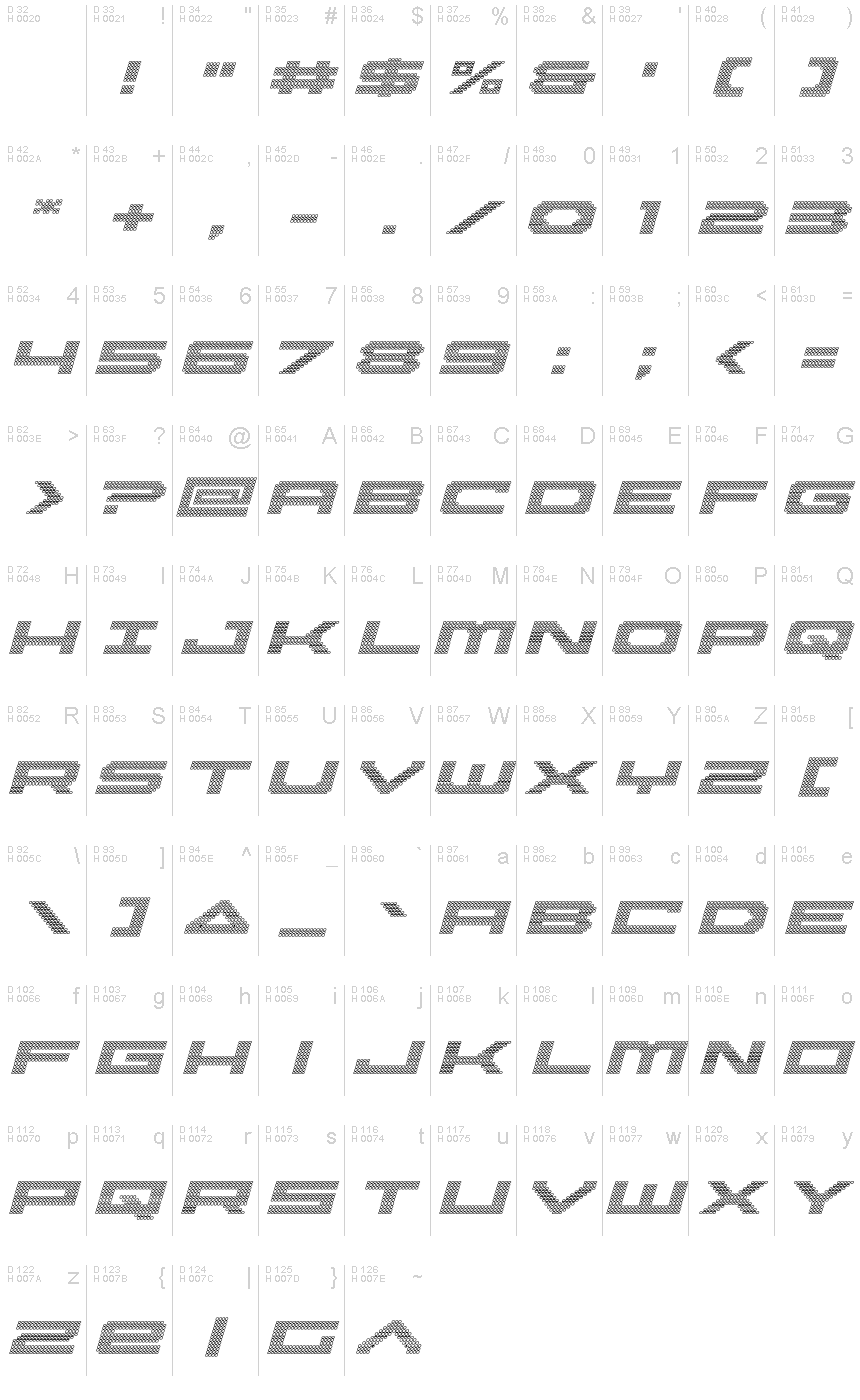
Pocket Ball 3D Italic
Pocket Ball 3D Italic is a dynamic and captivating display font that exudes a sense of digital energy and modern flair. Designed by Daniel Zadorozny, this typeface features a bold, three-dimensional aesthetic with sharp, angular edges and a sleek italic slant. The playful, yet refined, character forms evoke a retro-futuristic vibe, making it an ideal choice for a wide range of digital applications, from gaming interfaces and app designs to bold headings and eye-catching branding.
The font's striking visual impact and versatility make it a compelling option for designers seeking to infuse their projects with a bold, visually striking typographic treatment. Whether crafting vibrant user interfaces, designing eye-catching promotional materials, or creating dynamic branding, Pocket Ball 3D Italic offers a unique and attention-grabbing typographic solution.